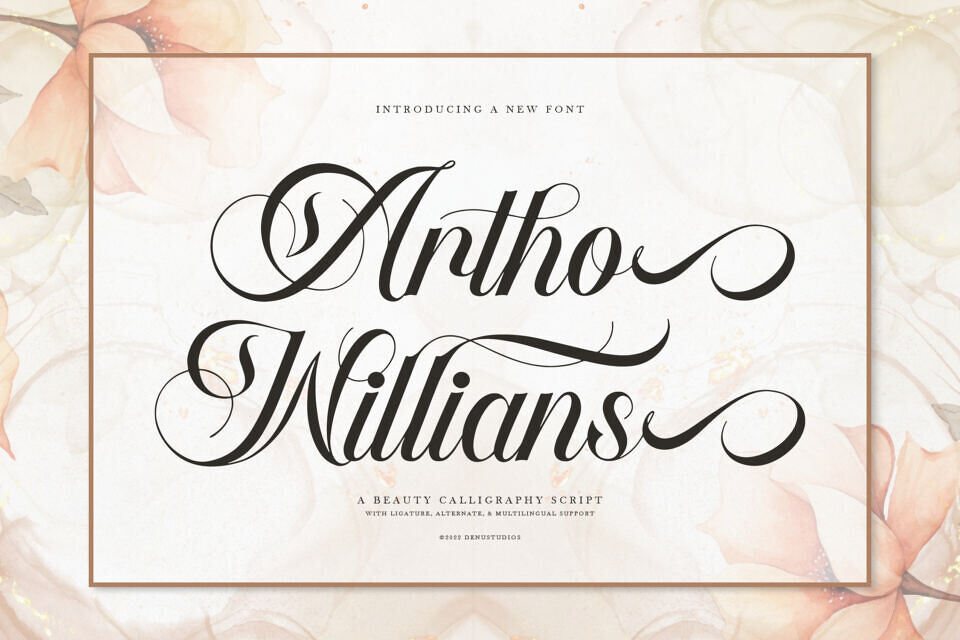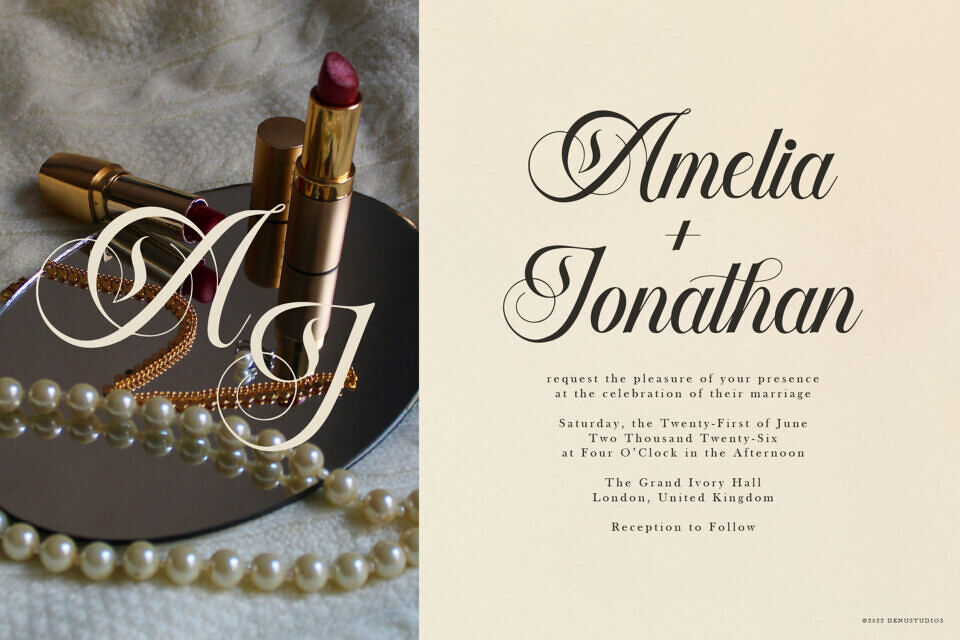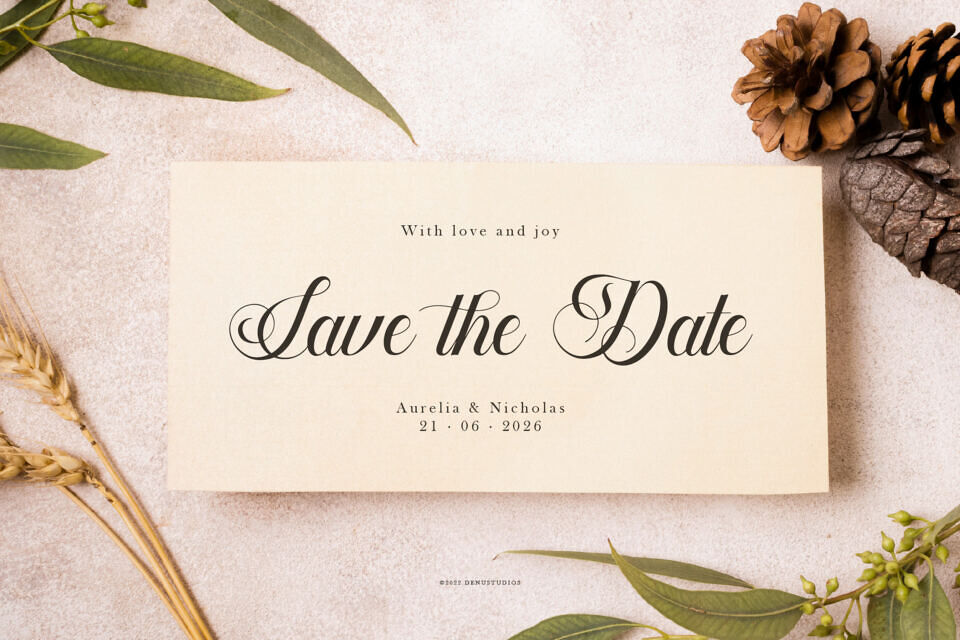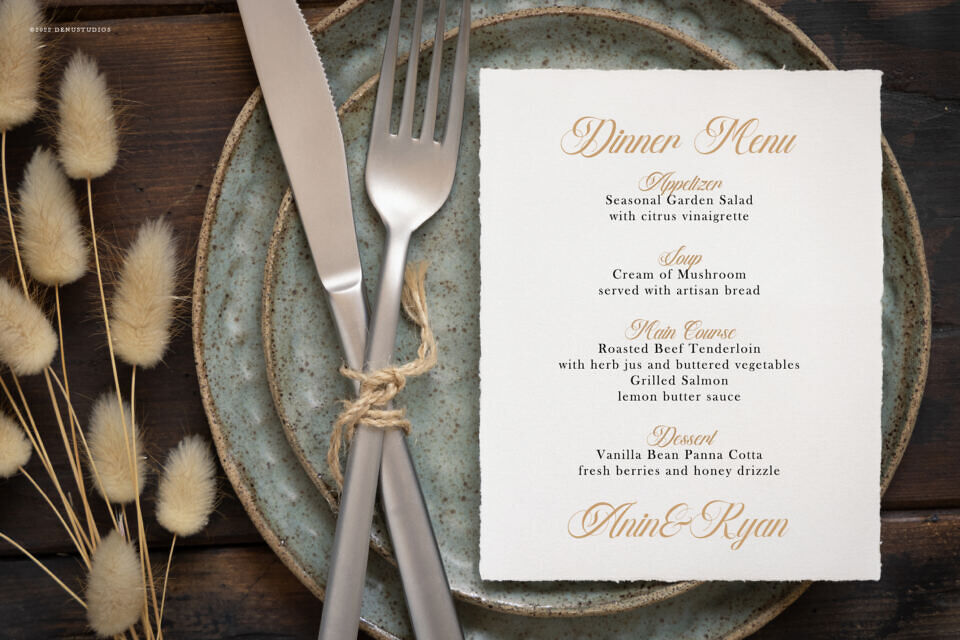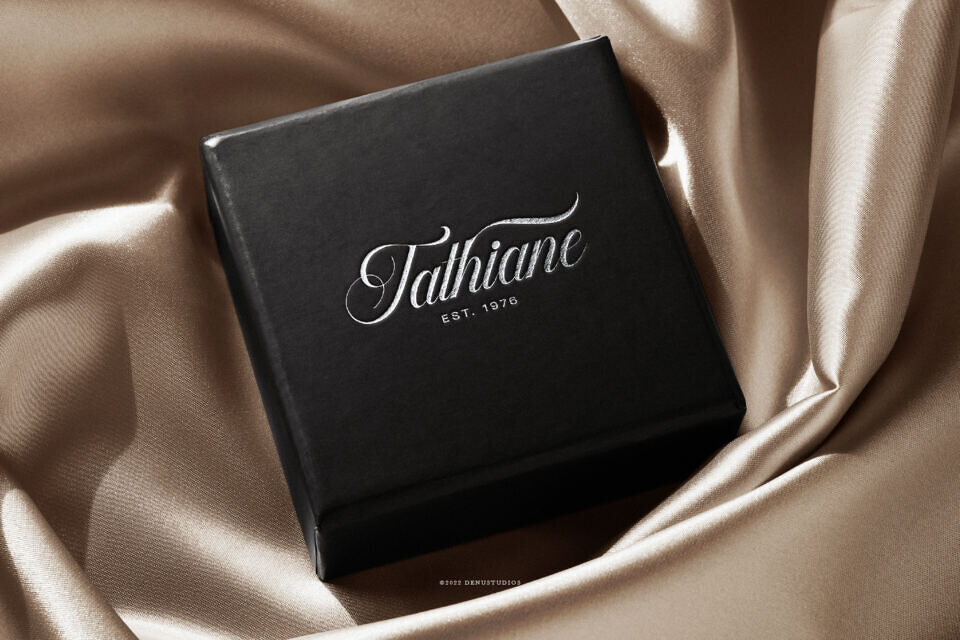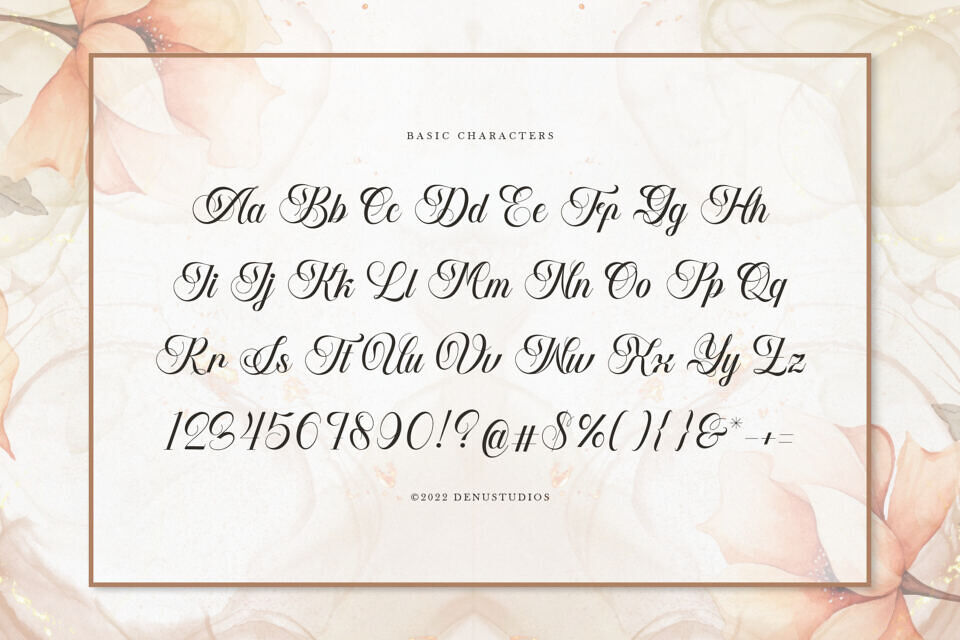
Artho Willians is a breathtaking calligraphy script that radiates classic beauty and sophisticated romance. Characterized by its dramatic, sweeping swashes and fluid, rhythmic strokes, this typeface captures the essence of masterful hand-lettering. It features an extensive collection of elegant ligatures and decorative alternates, allowing for a truly bespoke, high-end look.
Artho Willians is the premier choice for luxury wedding stationery, formal event invitations, premium branding, signature logos, and any project that requires a timeless, artistic, and deeply graceful touch.